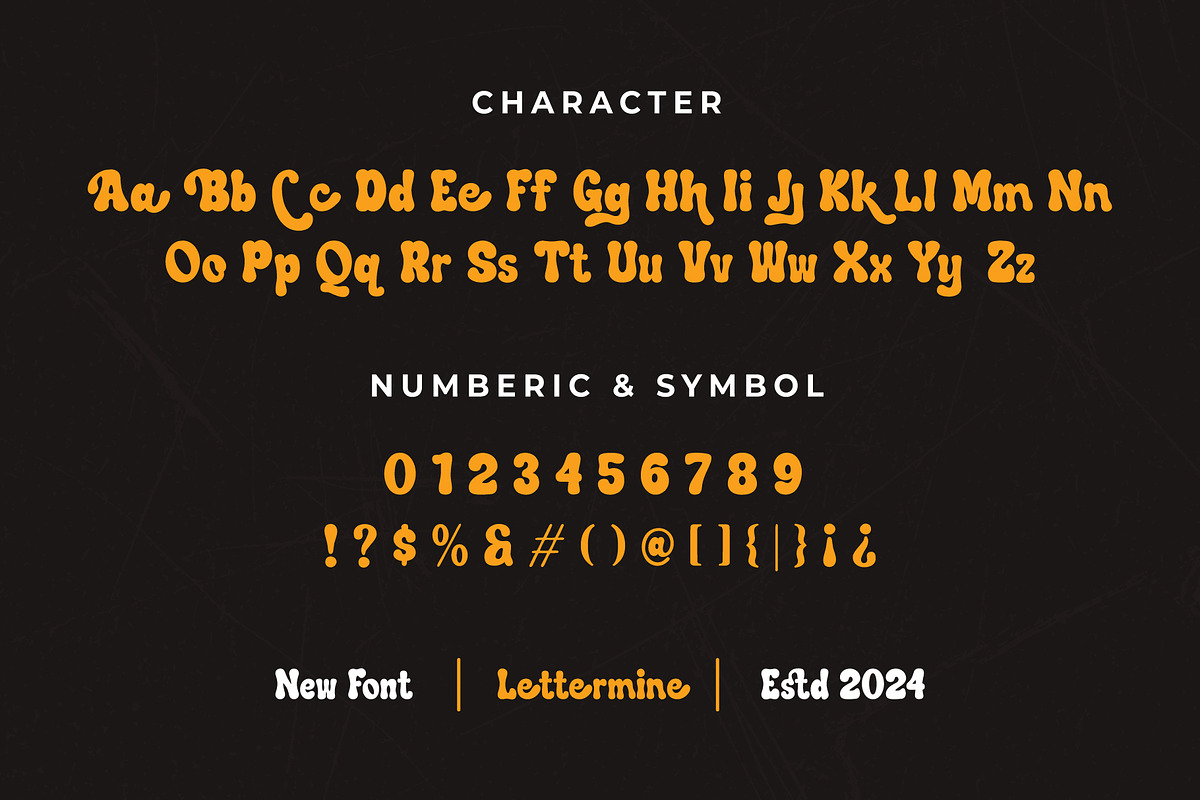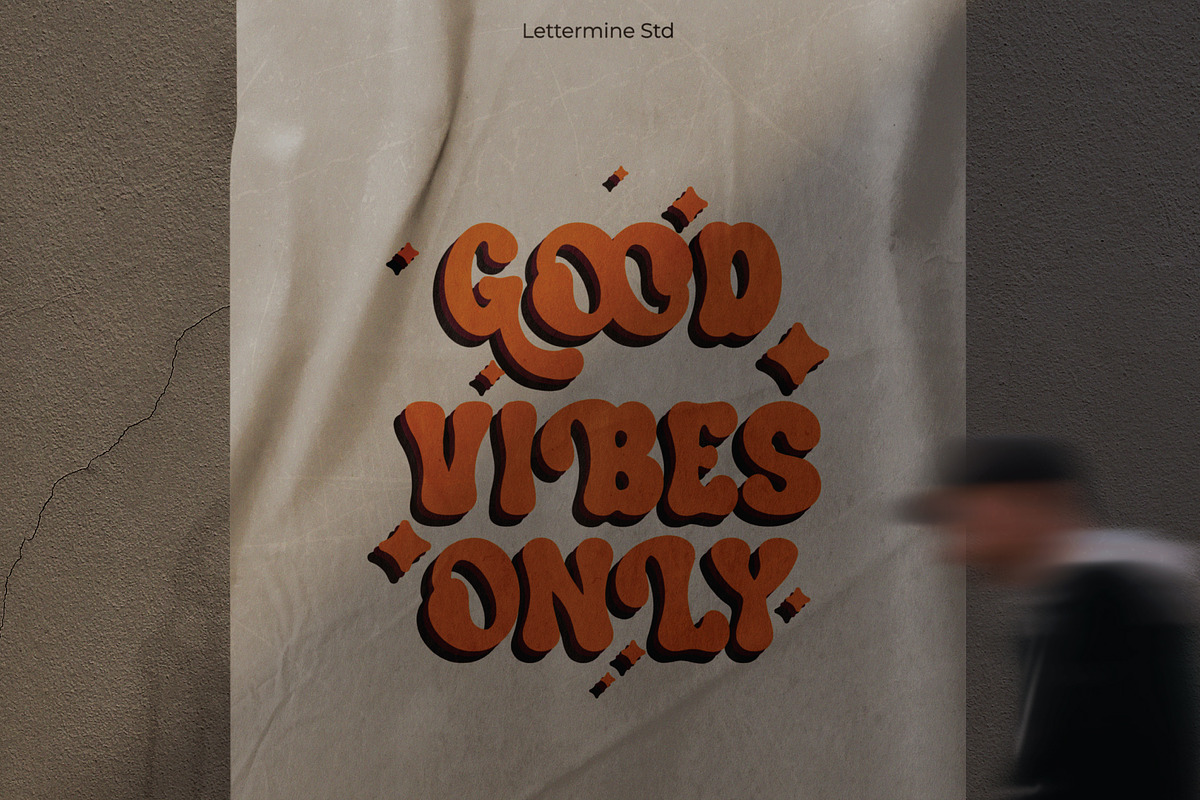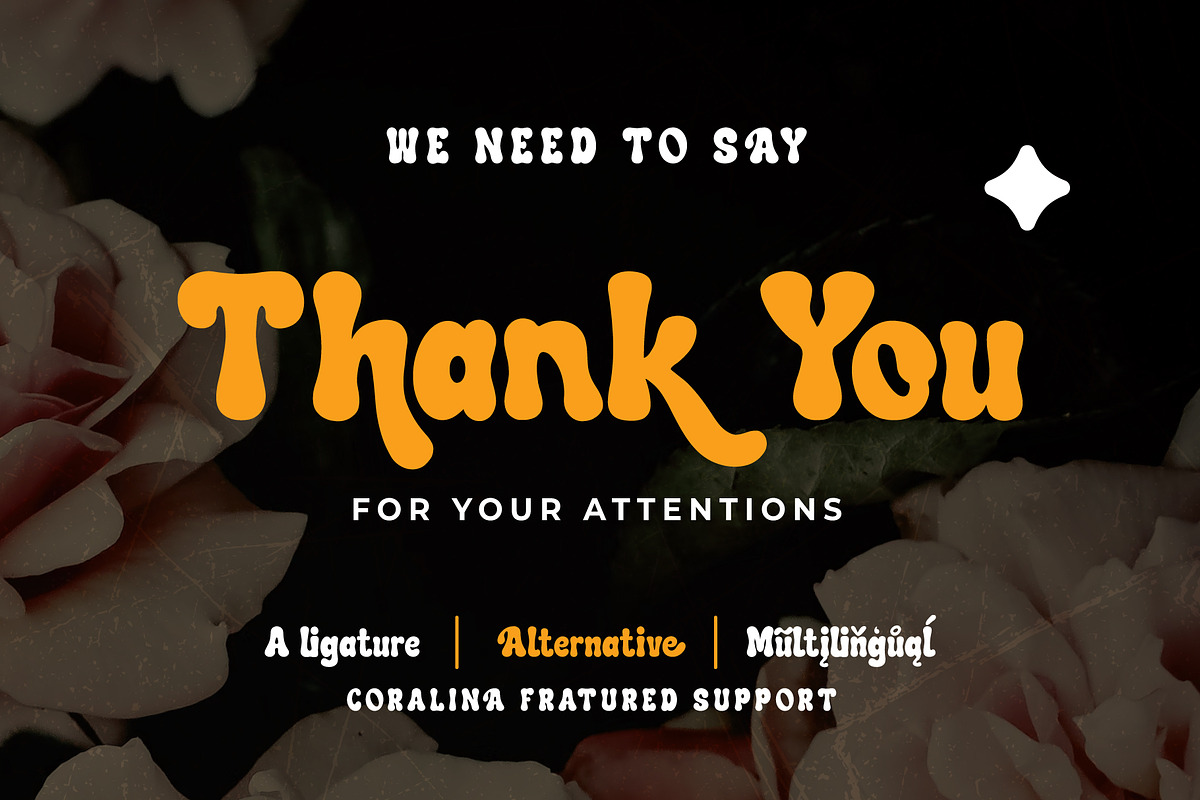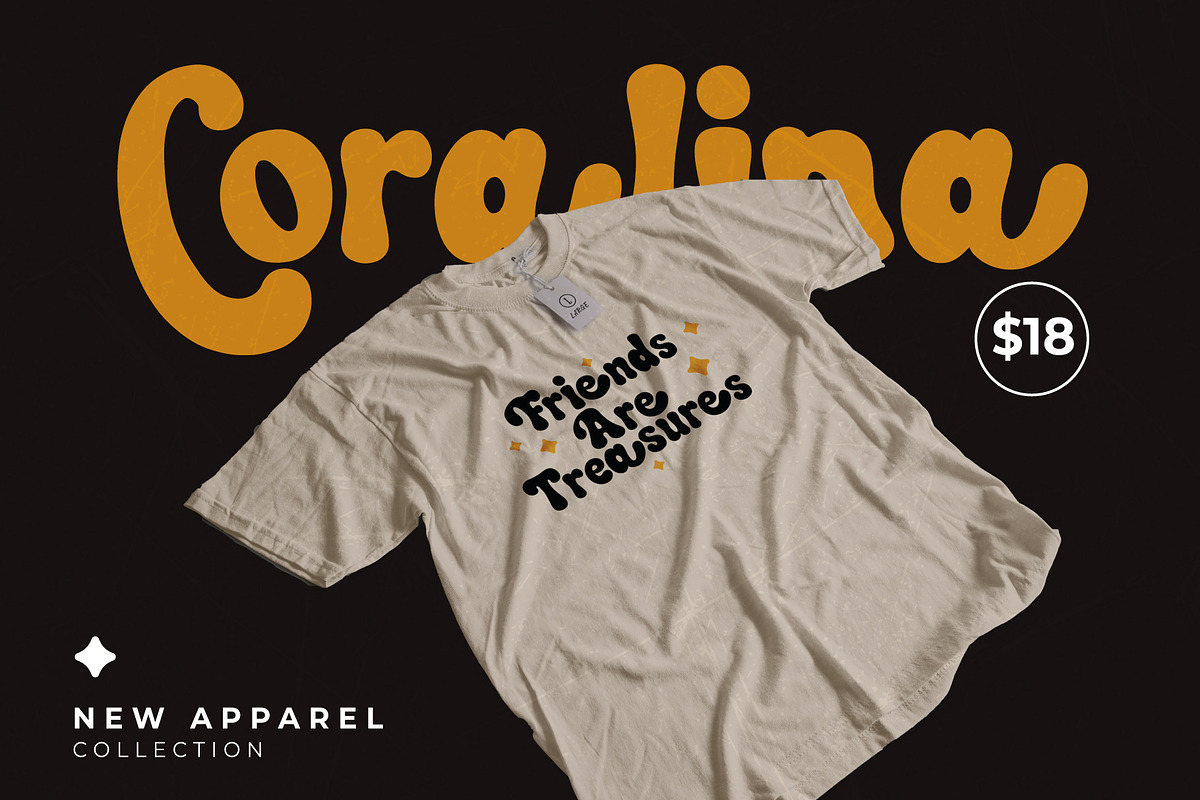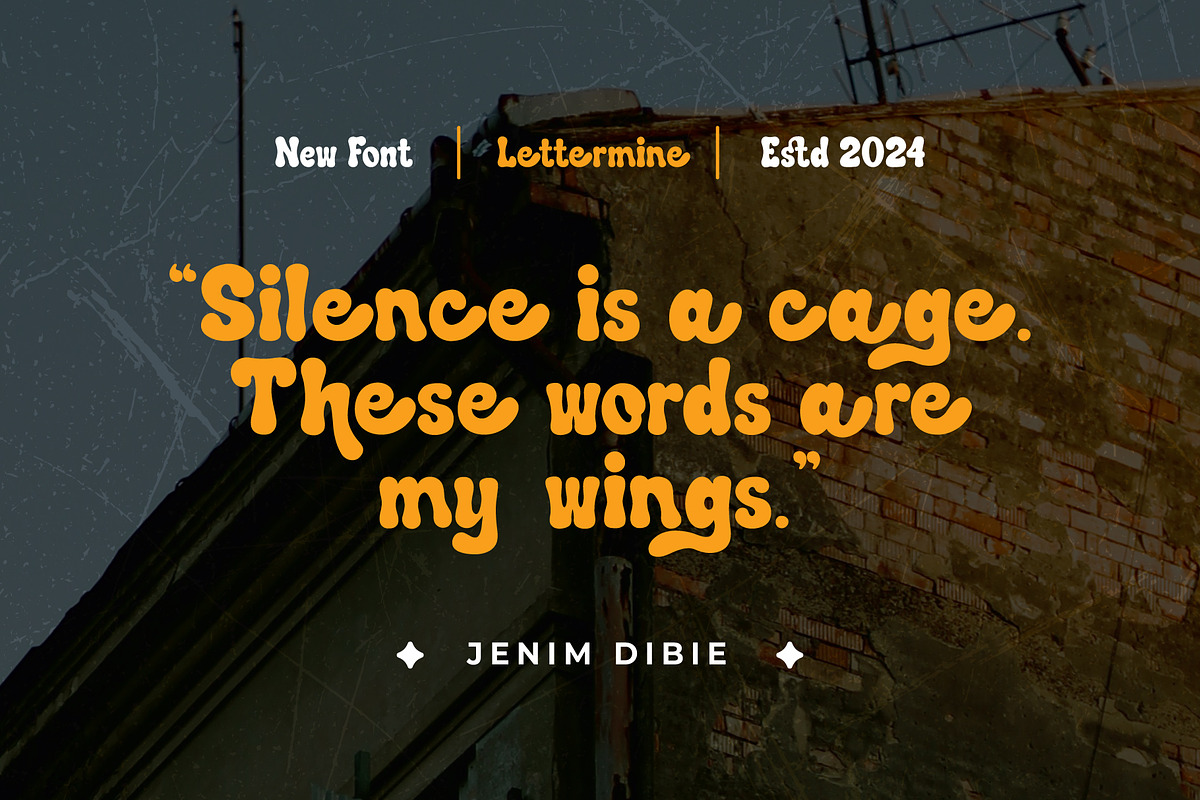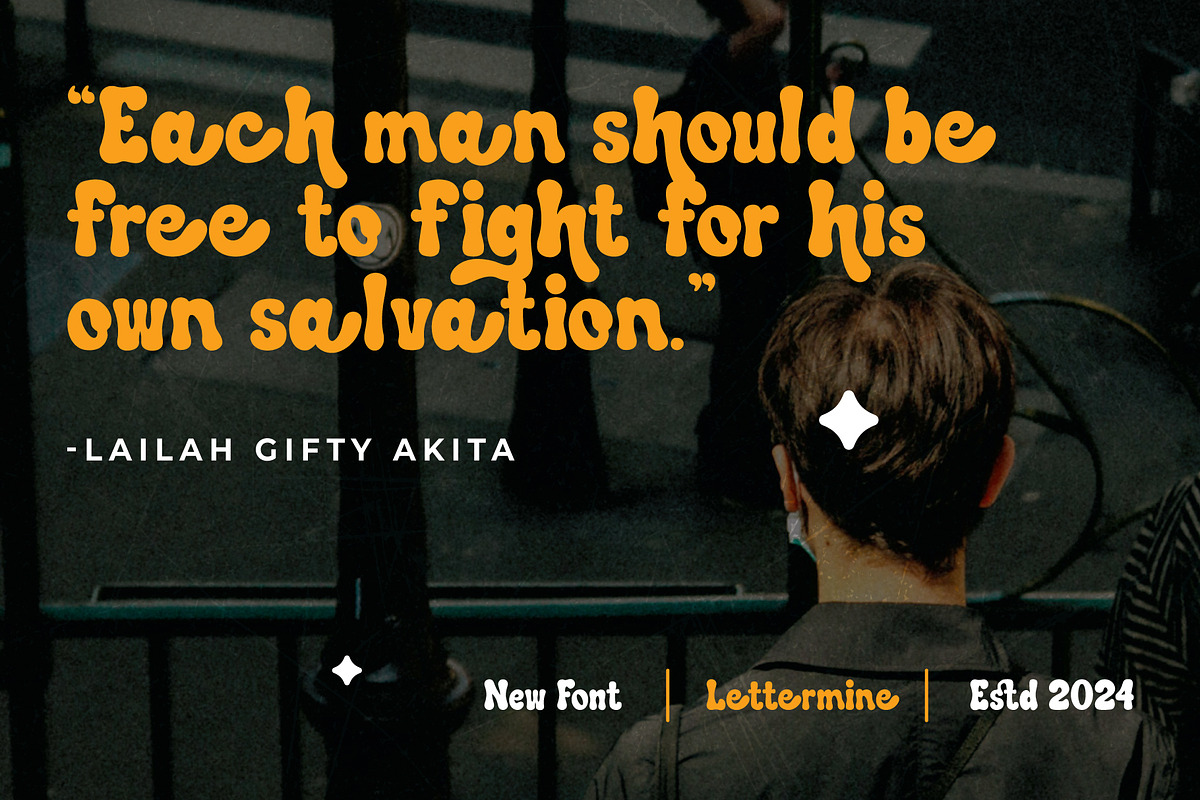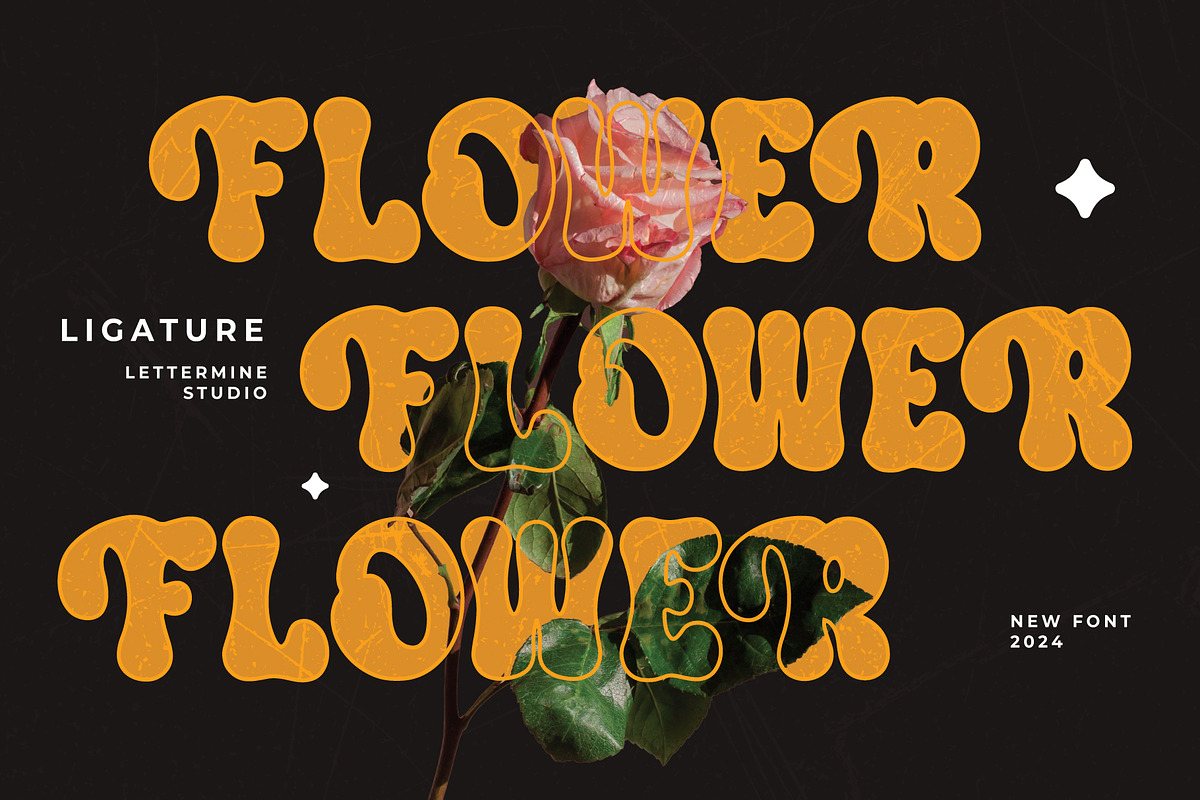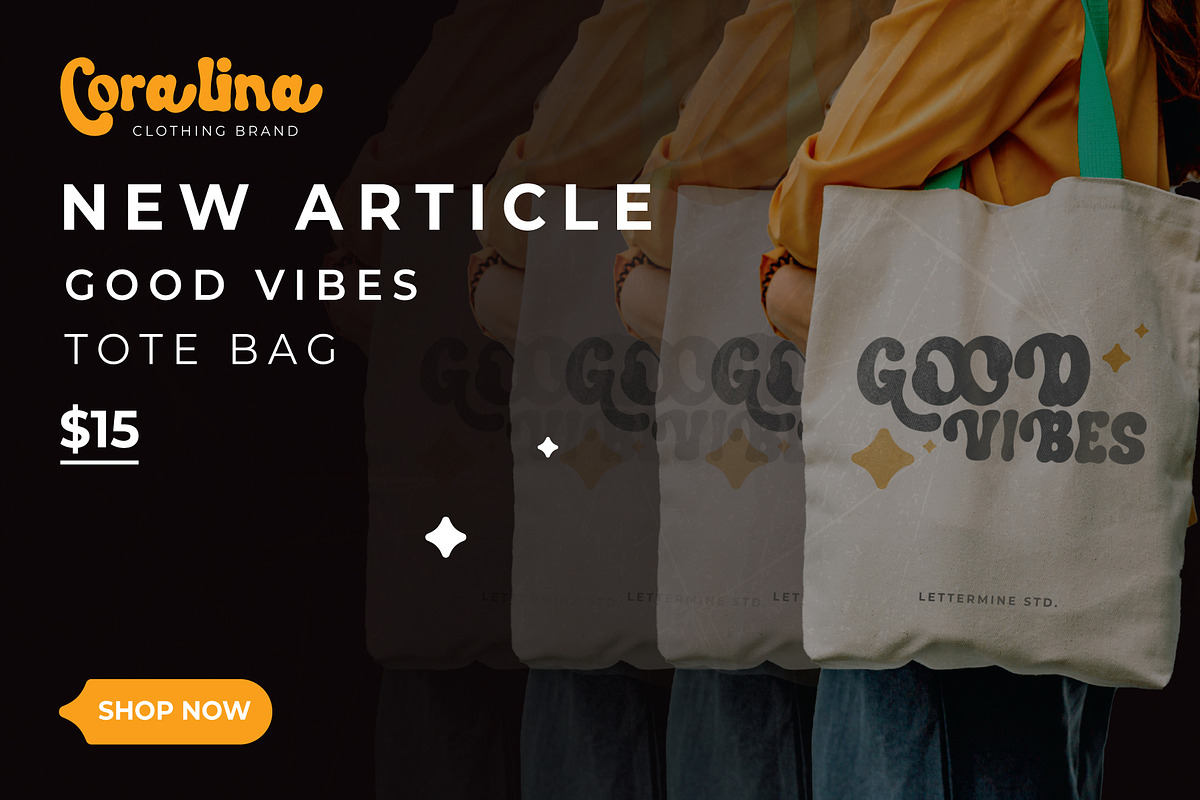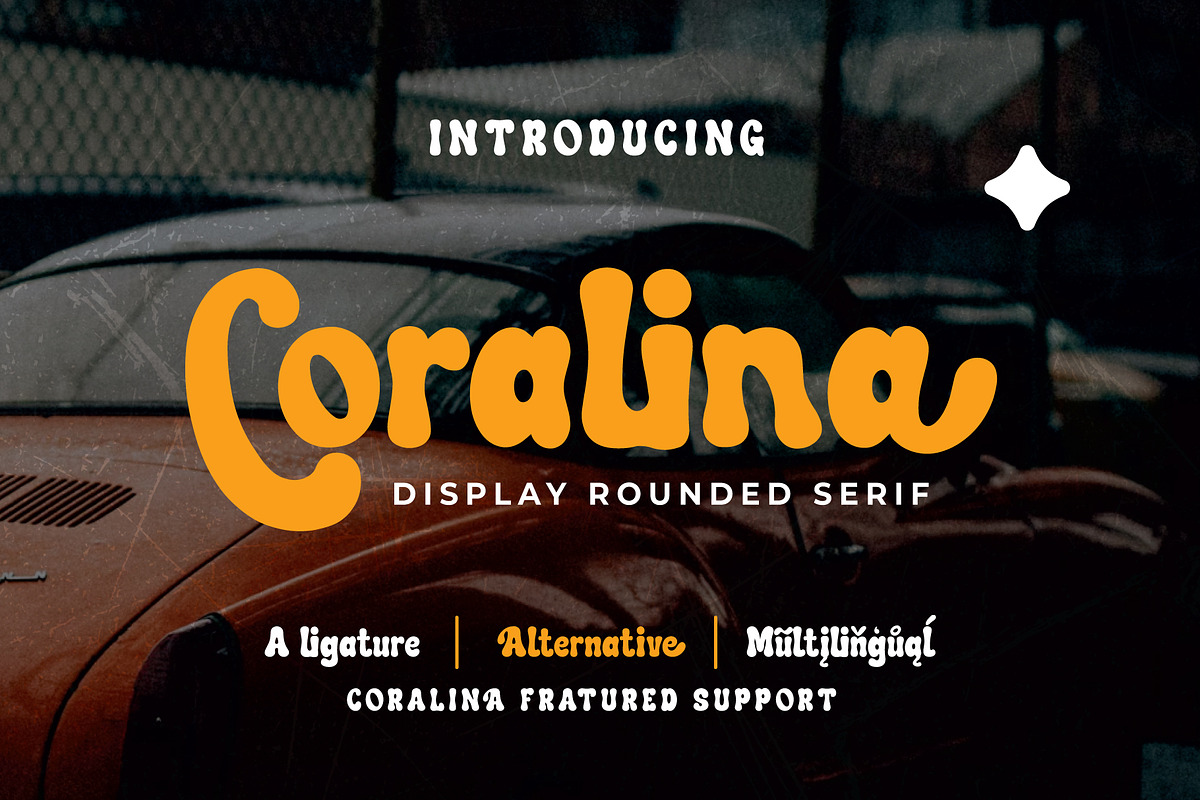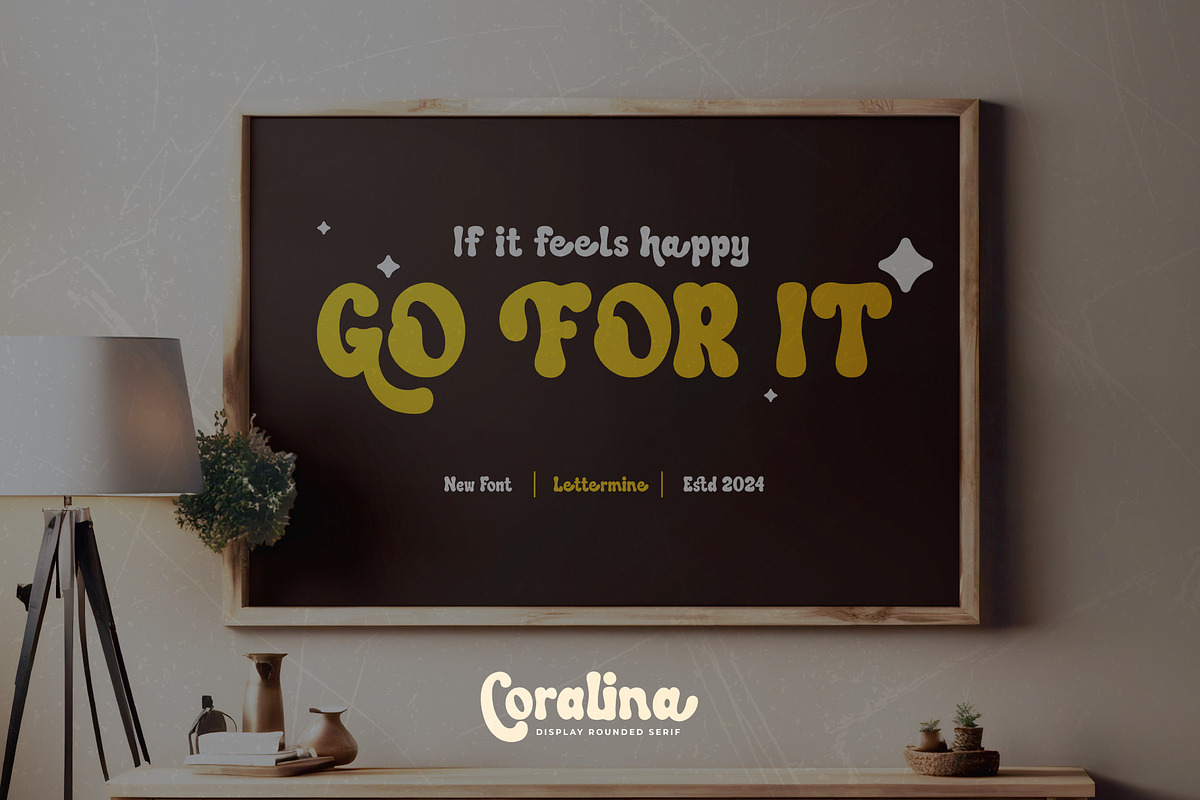
Coralina - Retro Serif
Introducing CORALINA
Your go-to Retro Serif font for adding a touch of vintage charm to your projects. With its timeless appeal and versatile features, this font is designed to elevate your designs effortlessly.
- Alternatives
- Upper Case & Lowercase
This font is perfect for:
- Branding and logo design, giving your business a classic yet contemporary edge.
- Editorial design, adding a touch of nostalgia to magazines, posters, and book covers.
- Vintage-themed projects, evoking a sense of nostalgia and authenticity.
- Wedding invitations and stationery, infusing your special day with elegance and sophistication.
- Social media graphics, captivating your audience with retro-inspired visuals.